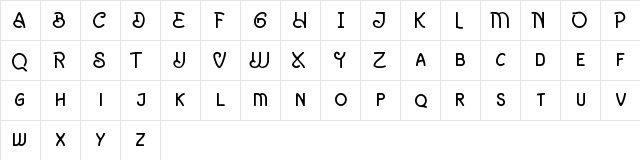
Eosland Regular
Design Context for Eosland Typeface
Eosland is a composed and adaptable typeface that performs quietly and consistently across a wide range of design contexts.
Pro Tip: Use Eosland in both headline and body roles to test its range before committing to a single application.